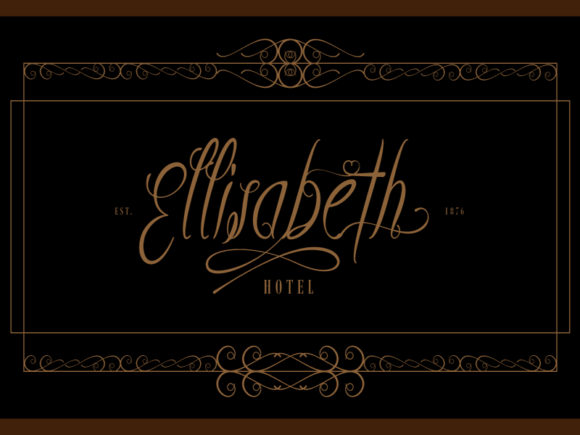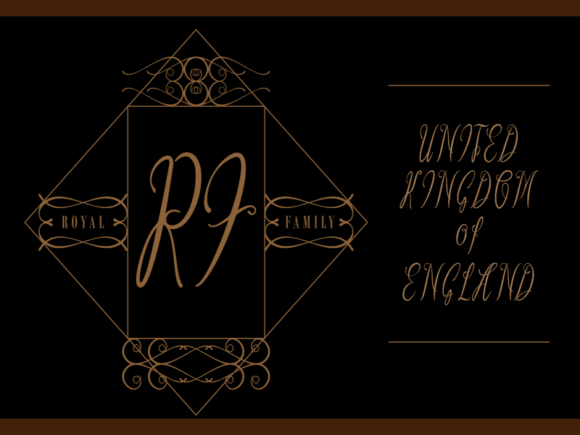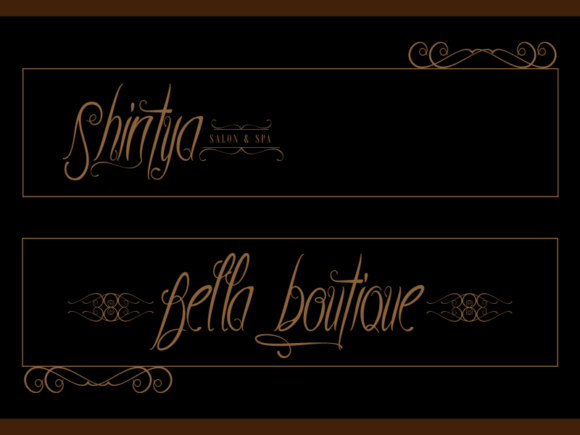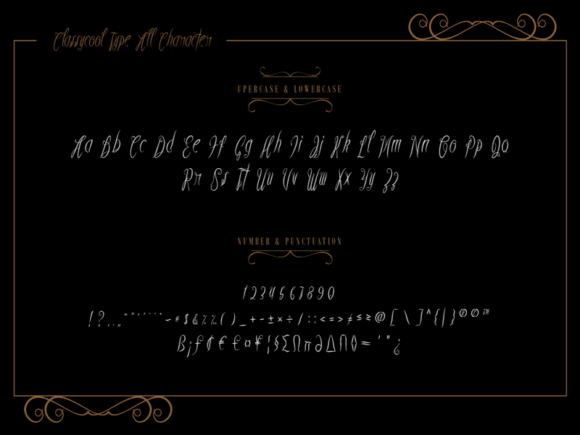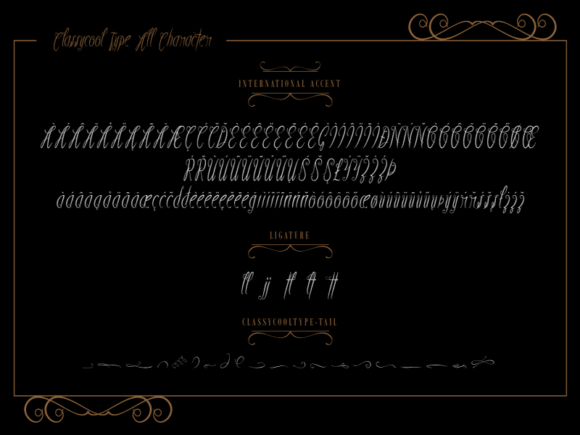
Introducing Classycool Font: Elevate Your Designs with Elegance
Are you on the hunt for a font that exudes sophistication, elegance, and a touch of whimsy? Look no further than Classycool Font, a stunning handwritten typeface that’s sure to capture your heart. With its authentic feel and versatile charm, Classycool is the perfect addition to any design project, from wedding invitations and stationery to social media posts and greeting cards.
The Essence of Classycool Font
Classycool Font is a masterfully crafted handwritten font that embodies the perfect blend of class and coolness. Its elegant strokes, precise lettering, and flowing connections make it an ideal choice for designers and crafters seeking to add a touch of sophistication to their work. Whether you’re creating bespoke wedding invitations, designing beautiful stationery, or crafting eye-catching social media posts, Classycool Font is sure to impress.
What Makes Classycool Font So Special?
- Authentic Feel: Classycool Font boasts an authentic, handcrafted feel that sets it apart from more generic fonts. Its unique character and charm make it perfect for designs that require a personal touch.
- Elegant and Versatile: With its elegant strokes and versatile design, Classycool Font can be used in a wide range of applications, from formal wedding invitations to playful greeting cards.
- Easy to Read: Despite its elegant nature, Classycool Font remains highly legible, making it perfect for both digital and print designs.
- Perfect for Branding: Classycool Font’s unique character makes it an excellent choice for branding projects, helping you establish a distinctive visual identity.
Endless Design Possibilities with Classycool Font
Classycool Font’s versatility knows no bounds, making it an excellent addition to any design project. Here are just a few ideas to get you started:
- Wedding Invitations: Create stunning, one-of-a-kind wedding invitations that set the tone for an unforgettable celebration.
- Stationery: Design beautiful stationery, including letterheads, notecards, and journals, that showcase your personal style.
- Social Media Posts: Elevate your social media presence with eye-catching posts, stories, and graphics that showcase your brand’s personality.
- Greeting Cards: Craft adorable greeting cards for special occasions, including birthdays, anniversaries, and holidays.
Tips for Using Classycool Font Effectively
To get the most out of Classycool Font, keep the following tips in mind:
- Pair with Complementary Fonts: Combine Classycool Font with complementary fonts to create visual interest and add depth to your designs.
- Experiment with Colors: Play with different colors and textures to find the perfect combination that brings your design to life.
- Pay Attention to Spacing: Ensure that your text is easy to read by paying attention to spacing and kerning.
Classycool Font is a game-changer for designers and crafters seeking to add a touch of elegance and sophistication to their work. With its authentic feel, versatile design, and endless possibilities, this stunning handwritten font is sure to become a favorite in your collection. So why wait? Fall in love with Classycool Font and elevate your designs to new heights of class and coolness.